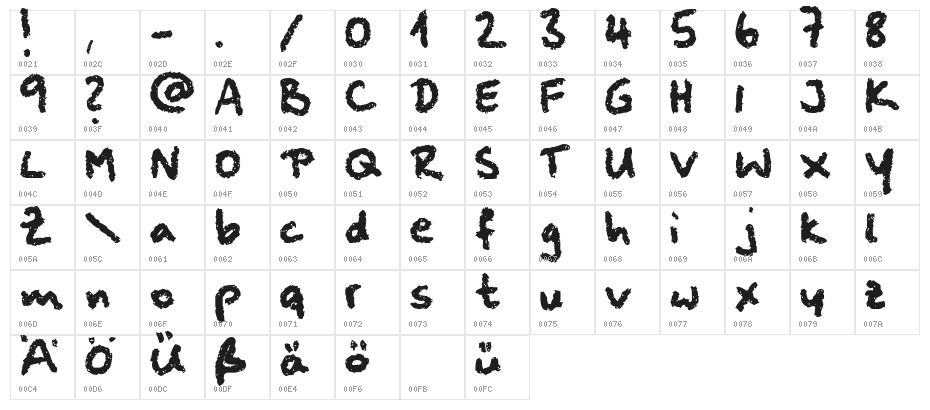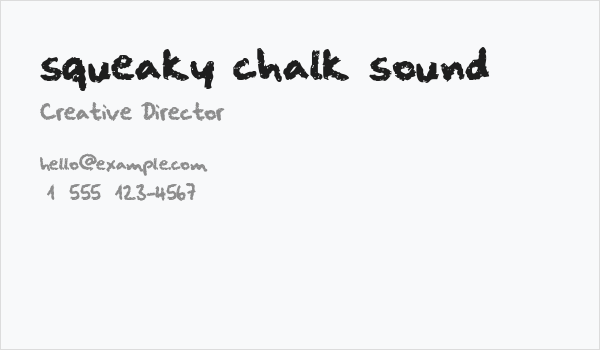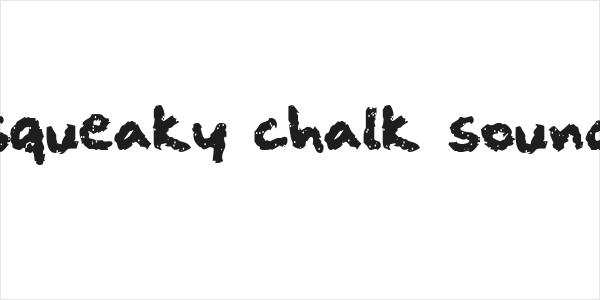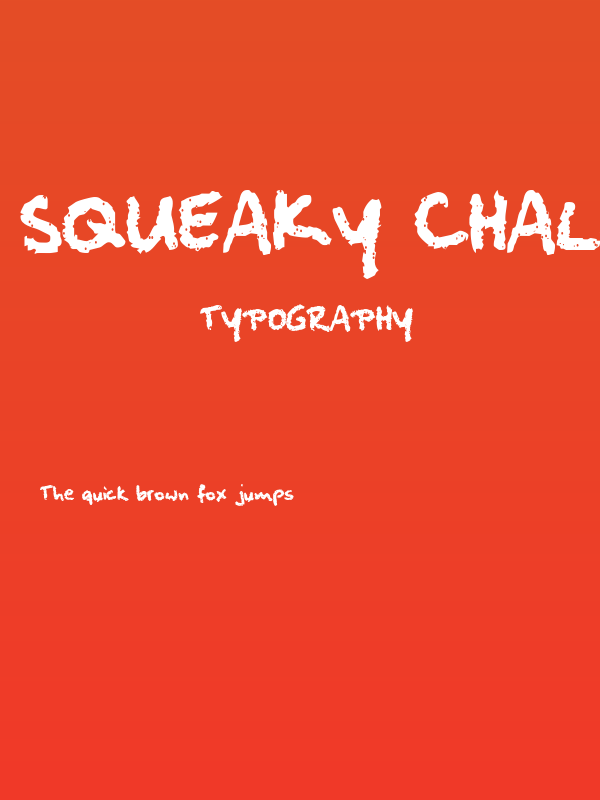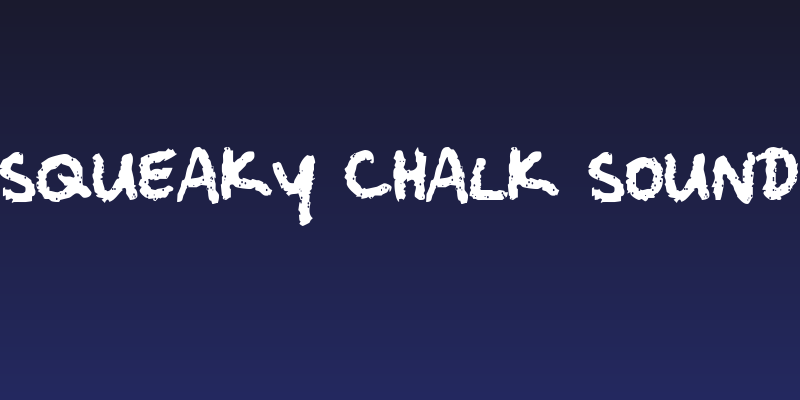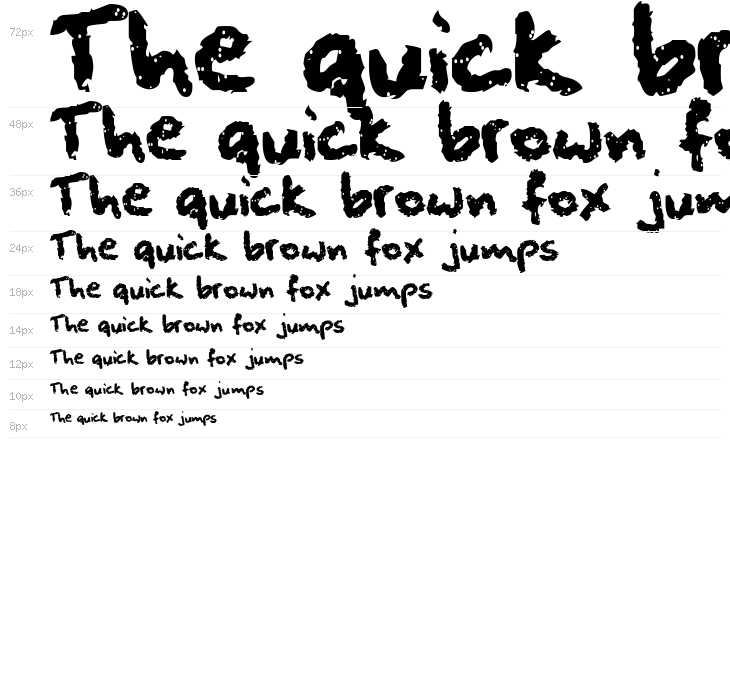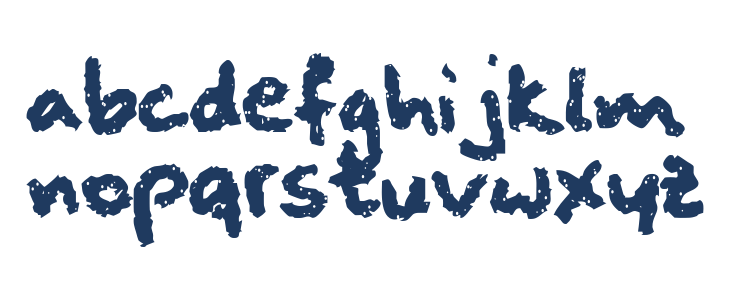
squeaky chalk sound Font
squeaky chalk sound Description
This font features a playful and textured design reminiscent of chalk writing on a blackboard. Each character is crafted with a rough, uneven texture that mimics the effect of chalk dust, giving it a casual and informal appearance. The letters are bold and slightly irregular, adding to the hand-drawn aesthetic. The uppercase and lowercase letters maintain a consistent style, with rounded edges and varying stroke widths that enhance the chalk-like effect. Numbers and special characters follow the same design principles, ensuring a cohesive look across all elements. This font is ideal for projects that require a fun and approachable feel, such as children's book covers, educational materials, or creative posters.
| Use Case | Headlines, Logos, Creative Posters |
| Proposed Projects | Ideal for educational materials, children's books, creative posters, and playful branding. |